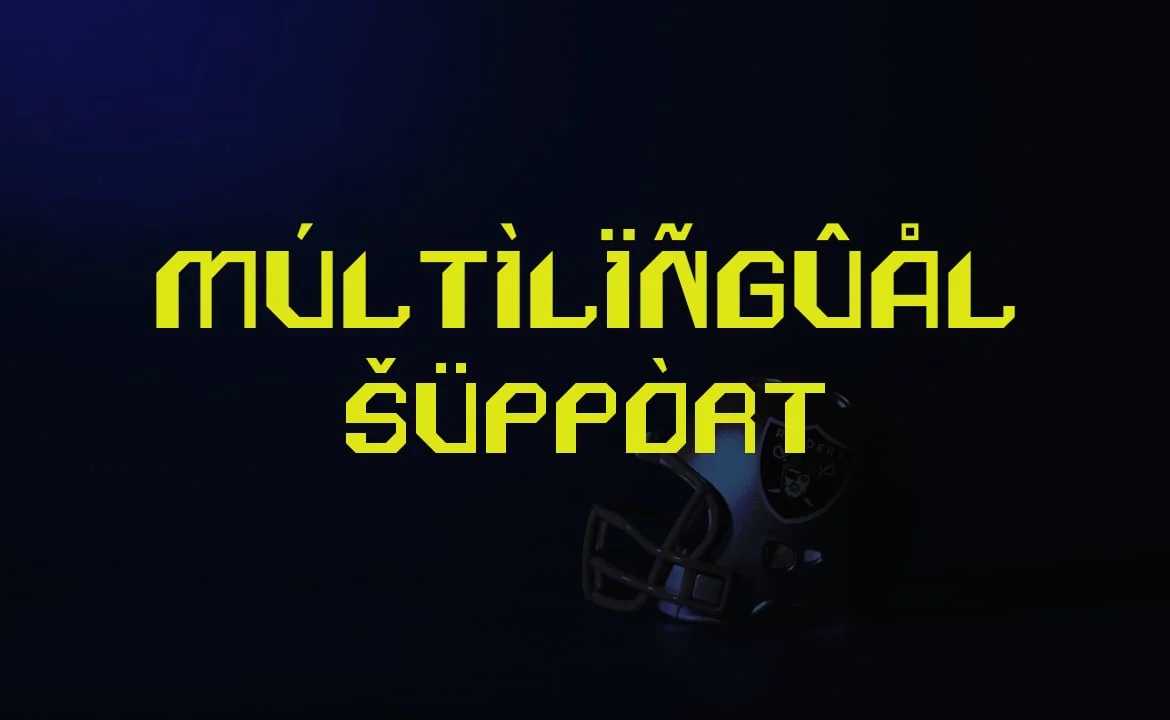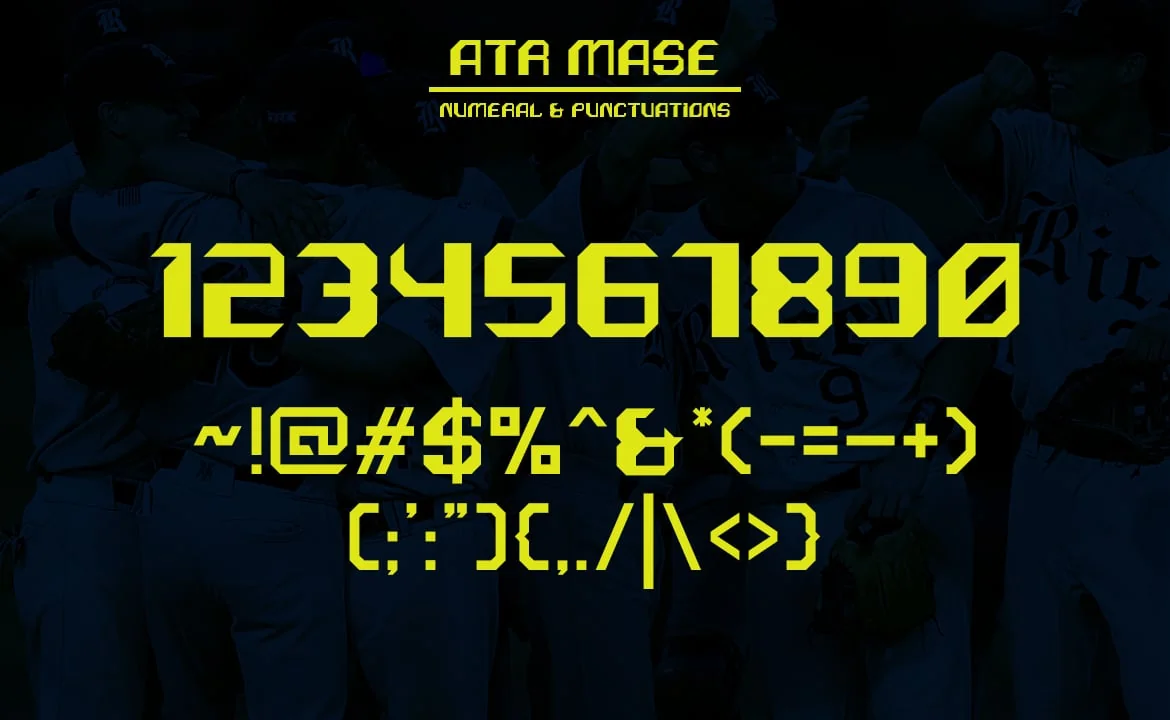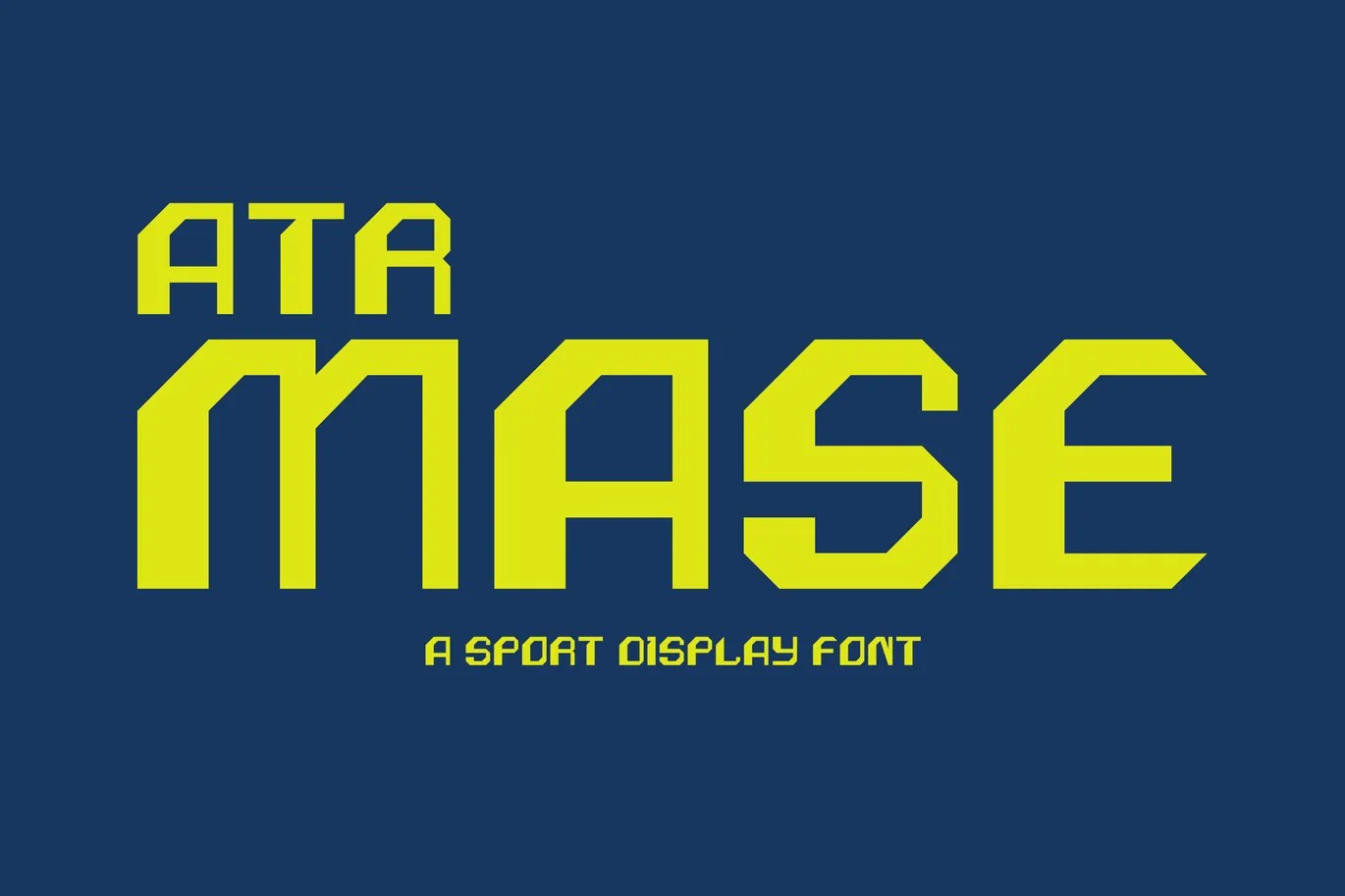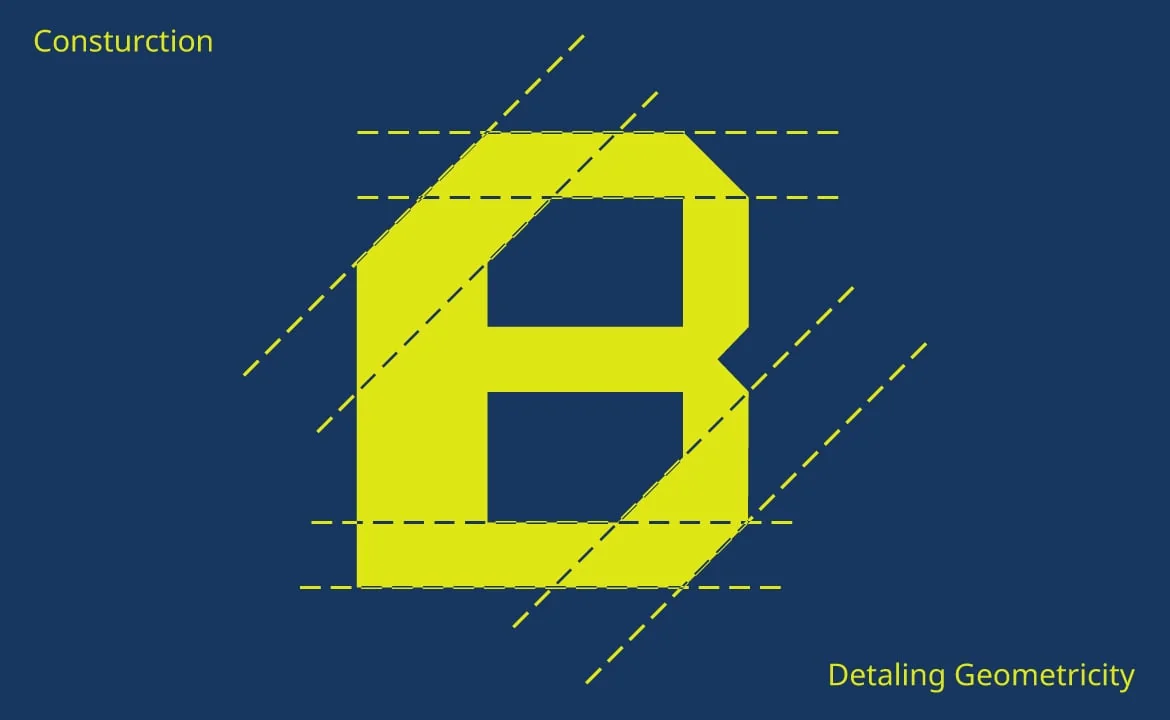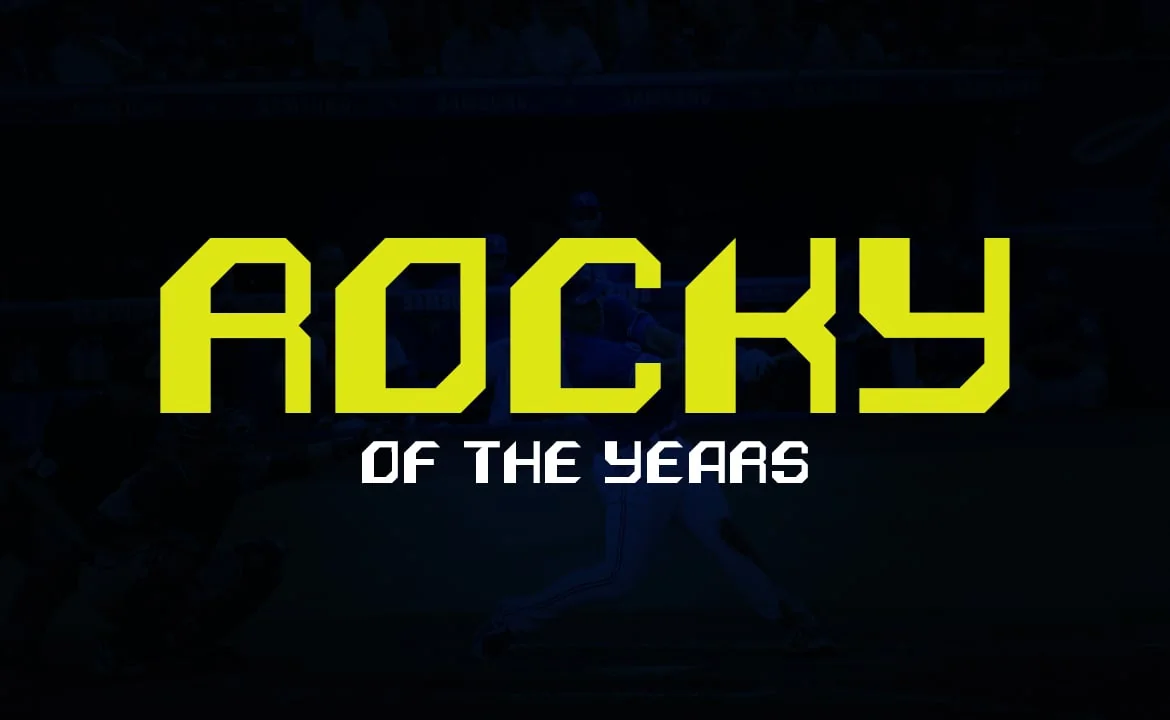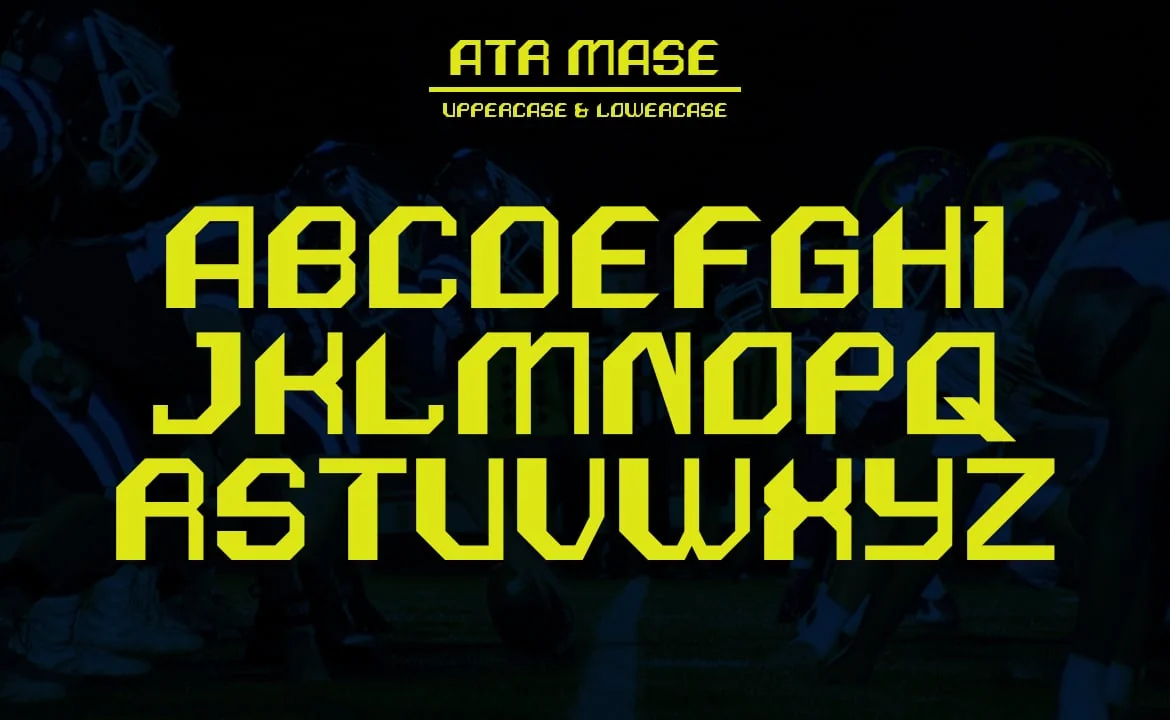
ATR Mase – Sport Display Font
ATR Mase is inspired by athletes and coaches who are strong, decisive, and fast. they have their own identity. the same is the case with the ATR Mase Font which has a distinctive slant and thin bold side on each character. You can use ATR Mase on Graphic Designs, Logos, Sports Designs, Car Stickers, Brand Identities, Sports Identities, Jersey Designs, Posters, or merchandise.